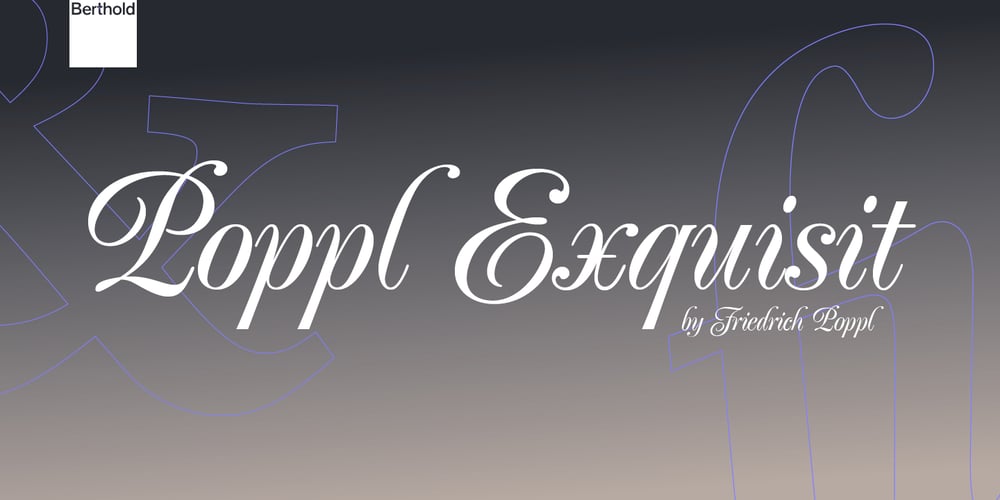
Poppl Exquisit Font Family was designed by Friedrich Poppl and published by Berthold. Poppl Exquisit contains 2 styles and family package options. Poppl Exquisit is a formal script by German graphic designer and professor Friedrich Poppl in 1970.